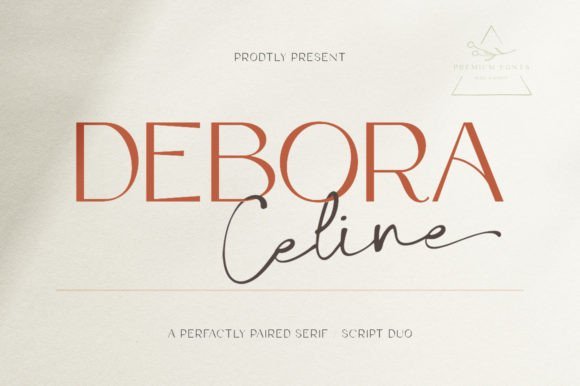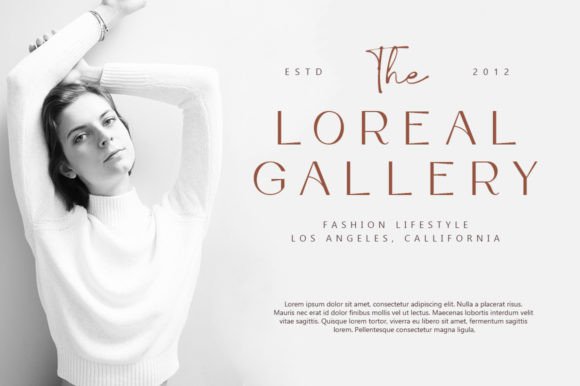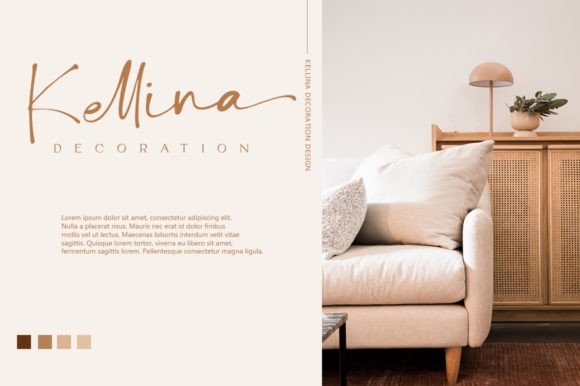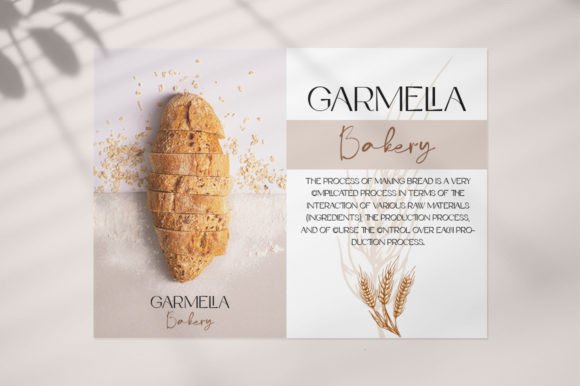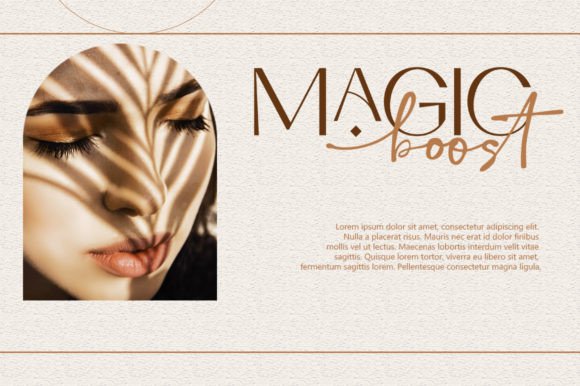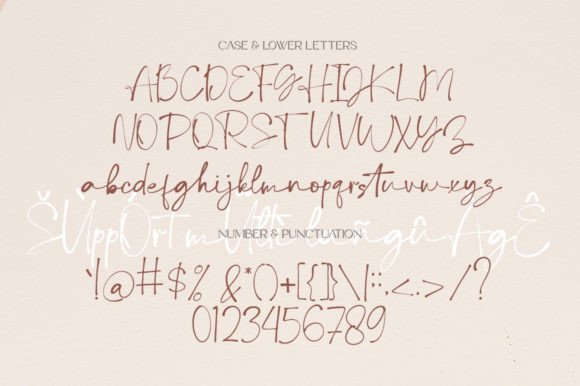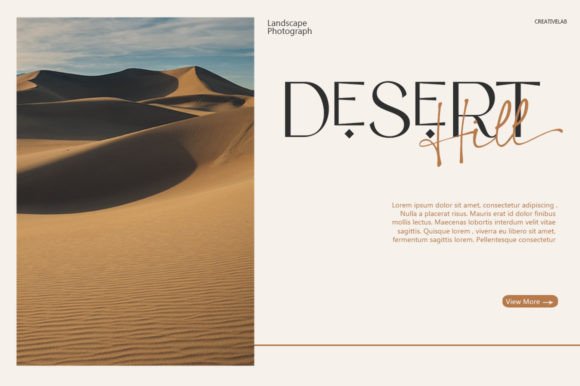
There’s nothing quite like the feeling of finding the perfect font to bring your creative vision to life. Imagine you’re brainstorming ideas for a Valentine’s Day poster and you stumble upon a font that perfectly captures the playful, romantic spirit you’re aiming for. That’s exactly what happens when you discover the Debora Celine Font Font – a Duo Script and Serif font that’s as unique as it is versatile.
Whether you’re working on a branding project, designing a magazine cover, or crafting a social media post, the Debora Celine Font Font is the perfect addition to your toolkit. Its customizable design and PUA encoding make it easy to access all the glyphs and sweeps you need to create a truly unique look. With its friendly and approachable feel, this font is sure to add a touch of personality to any project.
Debora Celine Font Font Key Features
- Font Family: Debora Celine Font Font is a script font designed for elegant and stylish text representation.
- Character Set: Includes a wide range of characters, including uppercase and lowercase letters, numerals, punctuation marks, and special characters.
- Font Size: Designed to work well in various font sizes, from 8pt to 24pt, making it suitable for body text, titles, and headings.
- Resolution: Optimized for high-resolution displays, including Retina displays, ensuring crisp and clear text representation.
- Unique Characteristics: Features elegant, flowing lines, and subtle connections between letters, giving it a unique and sophisticated look.
Debora Celine Font Review
Overall, I’m quite impressed with the Debora Celine Font – it’s a beautiful and elegant script font that can add a touch of sophistication to any design project. ✨ The font is highly versatile and can be used for a wide range of applications, from branding and packaging to editorial and advertising.
- The font’s flowing connections and subtle flourishes give it a sense of hand-drawn charm, making it perfect for designs that require a personal touch.
- The font is highly legible, even at smaller font sizes, making it suitable for body text and longer passages of text.
- The font’s elegant and refined aesthetic makes it an excellent choice for high-end designs, such as luxury branding and upscale advertising.
However, there are a few limitations to consider. ⚠️ The font may not be the best choice for designs that require a more modern or edgy feel, as its classic and elegant aesthetic may come across as too traditional. Additionally, the font may not be as effective in bold or all-caps settings, as its delicate connections and flourishes may get lost.
Overall, I would recommend the Debora Celine Font to designers who are looking for a beautiful and elegant script font that can add a touch of sophistication to their designs. With its high level of versatility and legibility, it’s a great choice for a wide range of design applications.
Use Debora Celine Font to add a touch of elegance to your designs.
Pair Debora Celine Font with other fonts to create a unique and eye-catching design.
Use Debora Celine Font for:
Branding and logo design.
Editorial and publishing design.
Alternatives to Debora Celine Font Font
Playfair Display is an elegant and luxurious serif font ideal for use in high-end branding, magazine titles, and formal invitations. It features a classic feel with intricate details and ornate flourishes.
Compared to Debora Celine Font Font, Playfair Display is more formal and sophisticated, making it suitable for premium branding and high-end designs. While Debora Celine Font Font is more versatile, Playfair Display excels in formal and elegant settings.
Great Vibes is a modern script font perfect for creating a friendly and approachable atmosphere in designs. It features a relaxed, handwritten feel that’s ideal for use in casual branding, social media graphics, and advertising.